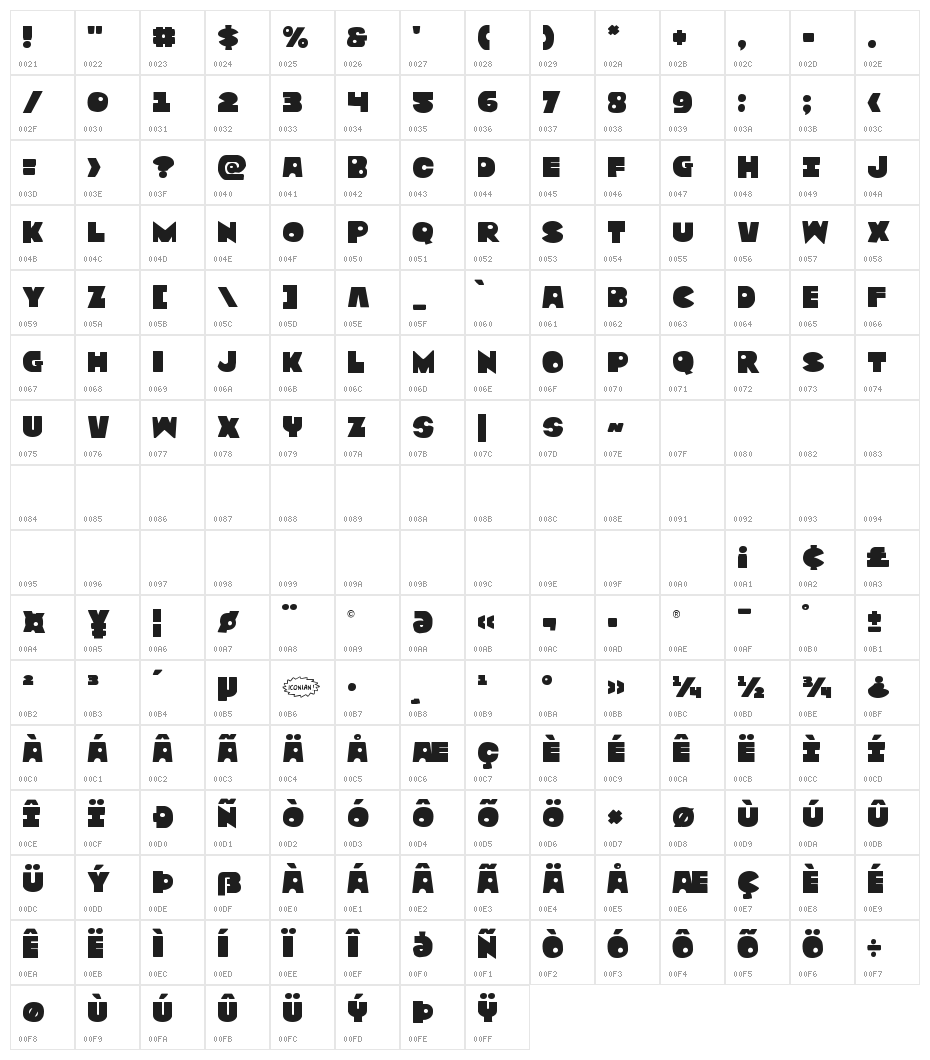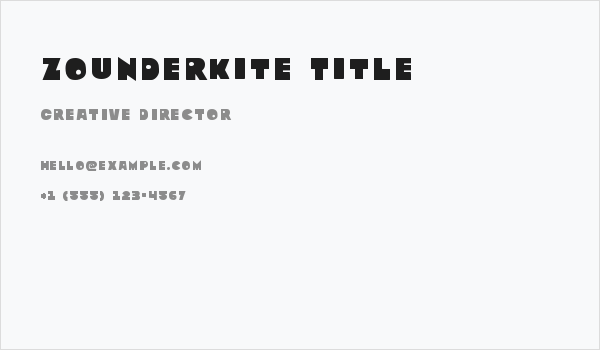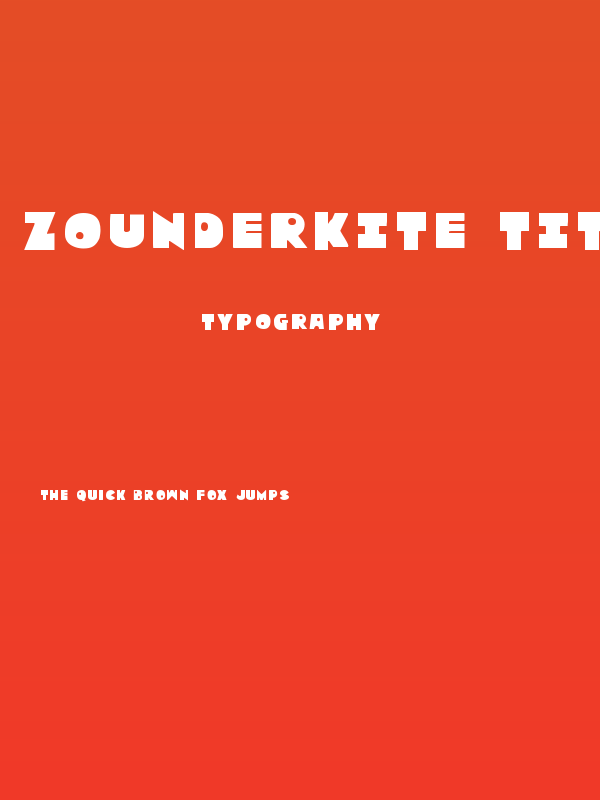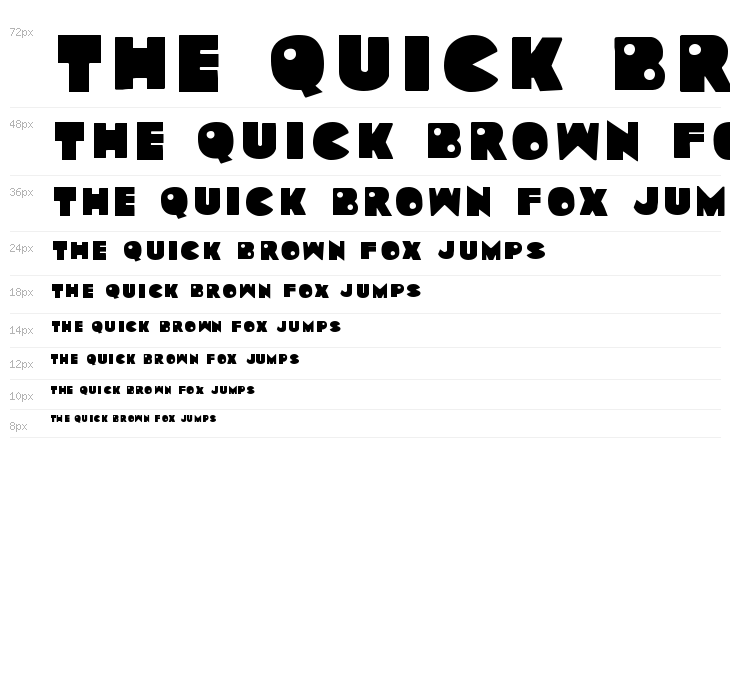
Zounderkite Title Font
Zounderkite Title Description
This font features bold, geometric shapes with a playful and chunky appearance. The characters are designed with a strong presence, making them ideal for attention-grabbing headlines. The uppercase letters are particularly striking, with unique cutouts and rounded edges that add a whimsical touch. The numerals and special characters maintain the same bold style, ensuring consistency across all text elements. This font's distinct style makes it suitable for creative projects that require a fun and engaging visual impact.
| Overall Style | Playful, Modern |
| Proposed Projects | Ideal for children's books, posters, logos, and playful branding projects. |